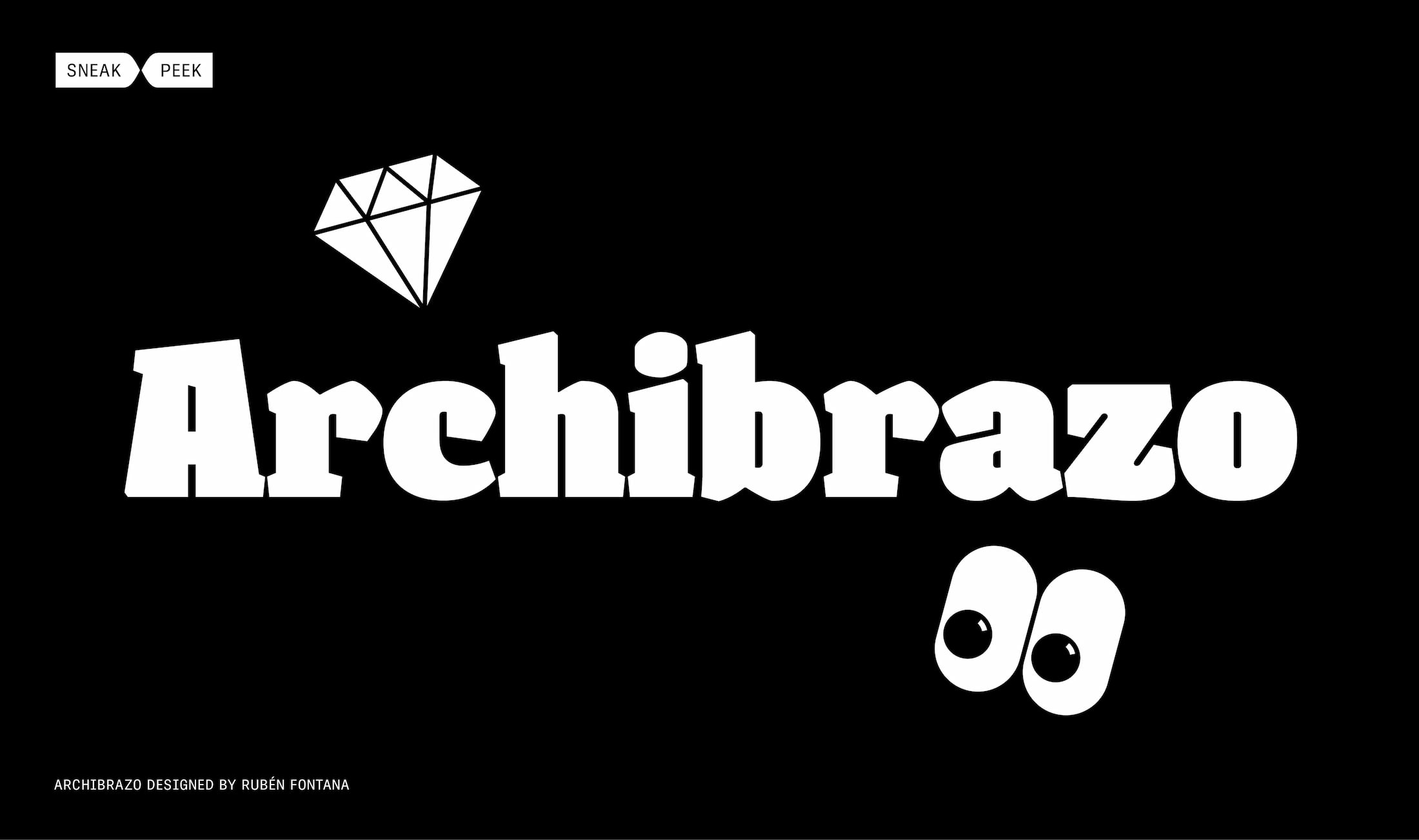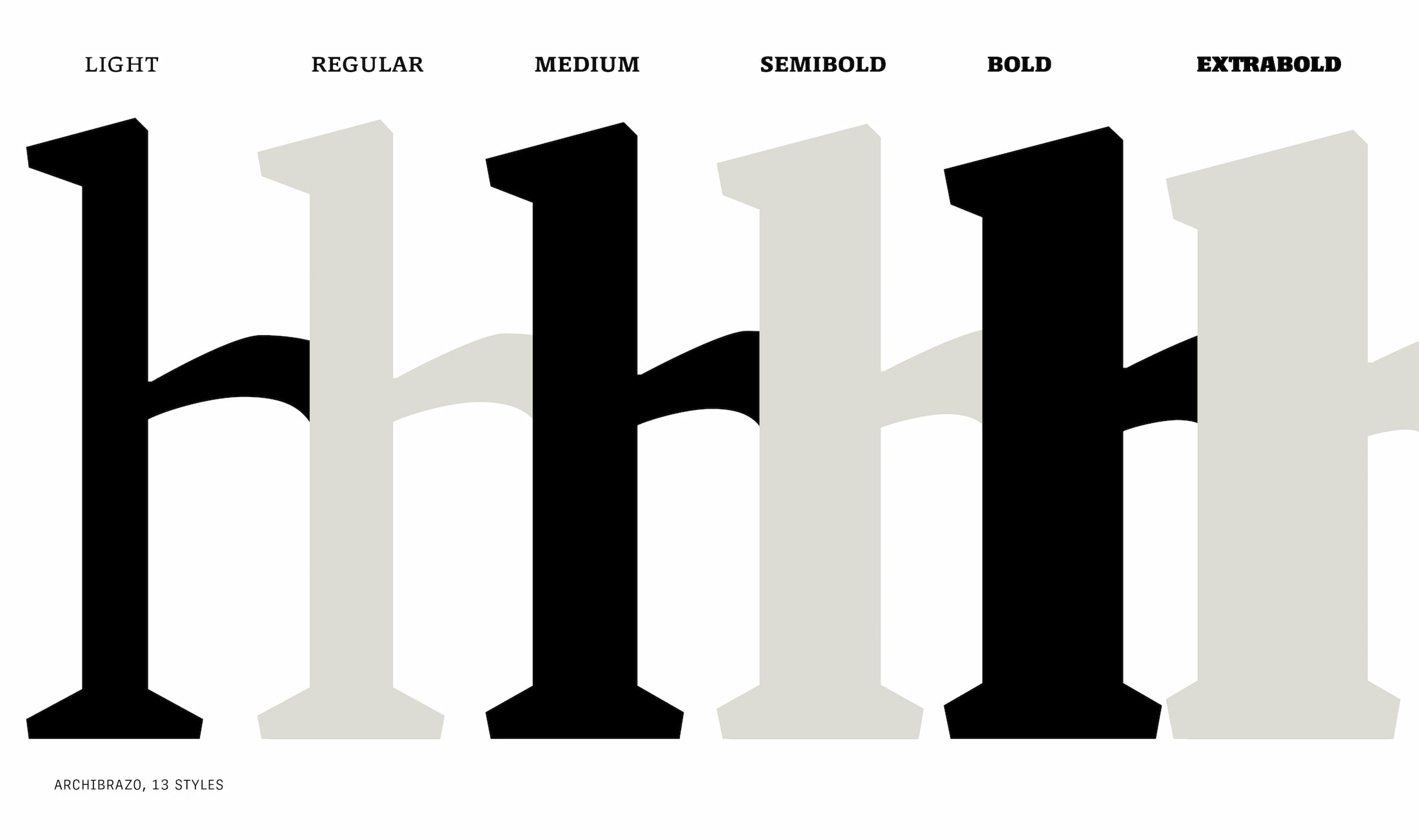
Archibrazo sneak peek
Coming soon: Rubén Fontana’s Archibrazo
Master type designer Rubén Fontana’s Archibrazo serif family combines calligraphy with sculpture for maximum readability. It will be released soon, but here’s a sneak peek.